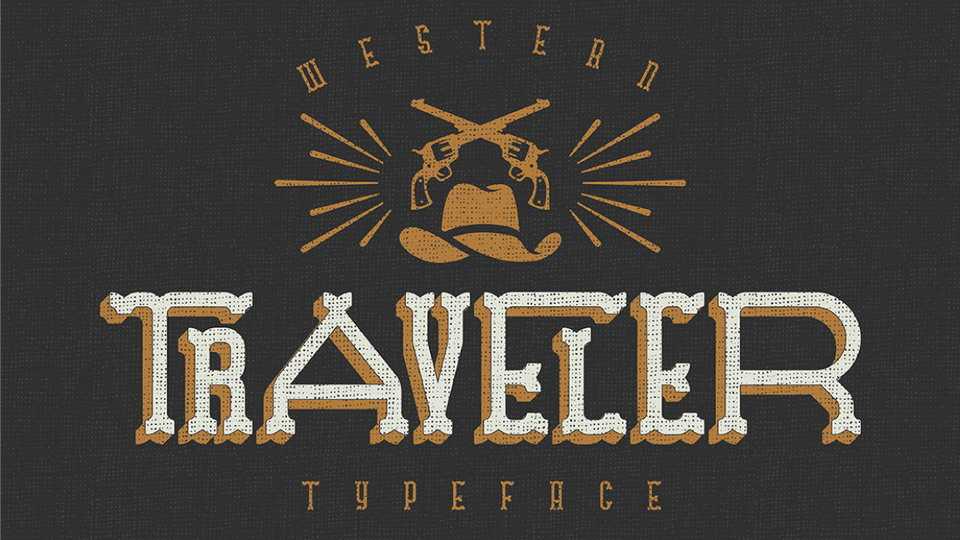
Download Traveler font family, a western style retro typeface in three styles, wide and narrow characters, and lots of ligatures. Traveler is great for vintage design and craft design, logos , labels and more.
Designer: Gleb Guralnyk